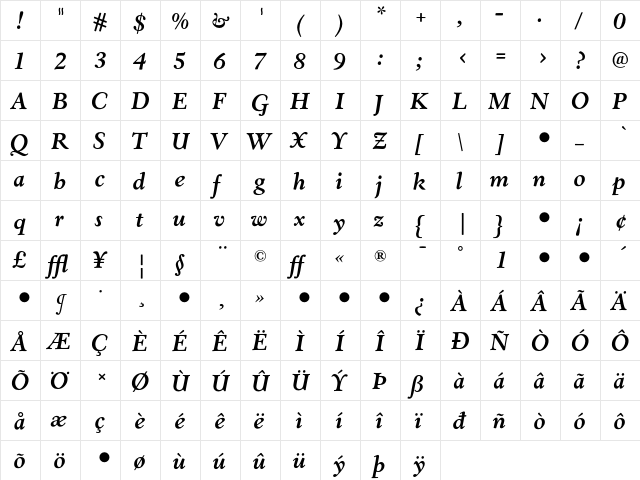
Eldorado BoldItalic
Design Context for Eldorado Typeface
Eldorado is a composed and adaptable typeface that performs quietly and consistently across a wide range of design contexts. The dynamic lean of this cut emphasises speed and emphasis in any layout. Its bold stroke weight gives it real presence on the page.
Pro Tip: Try Eldorado for annotation and caption copy alongside an upright companion — the contrast in angle creates a dynamic but ordered typographic system.